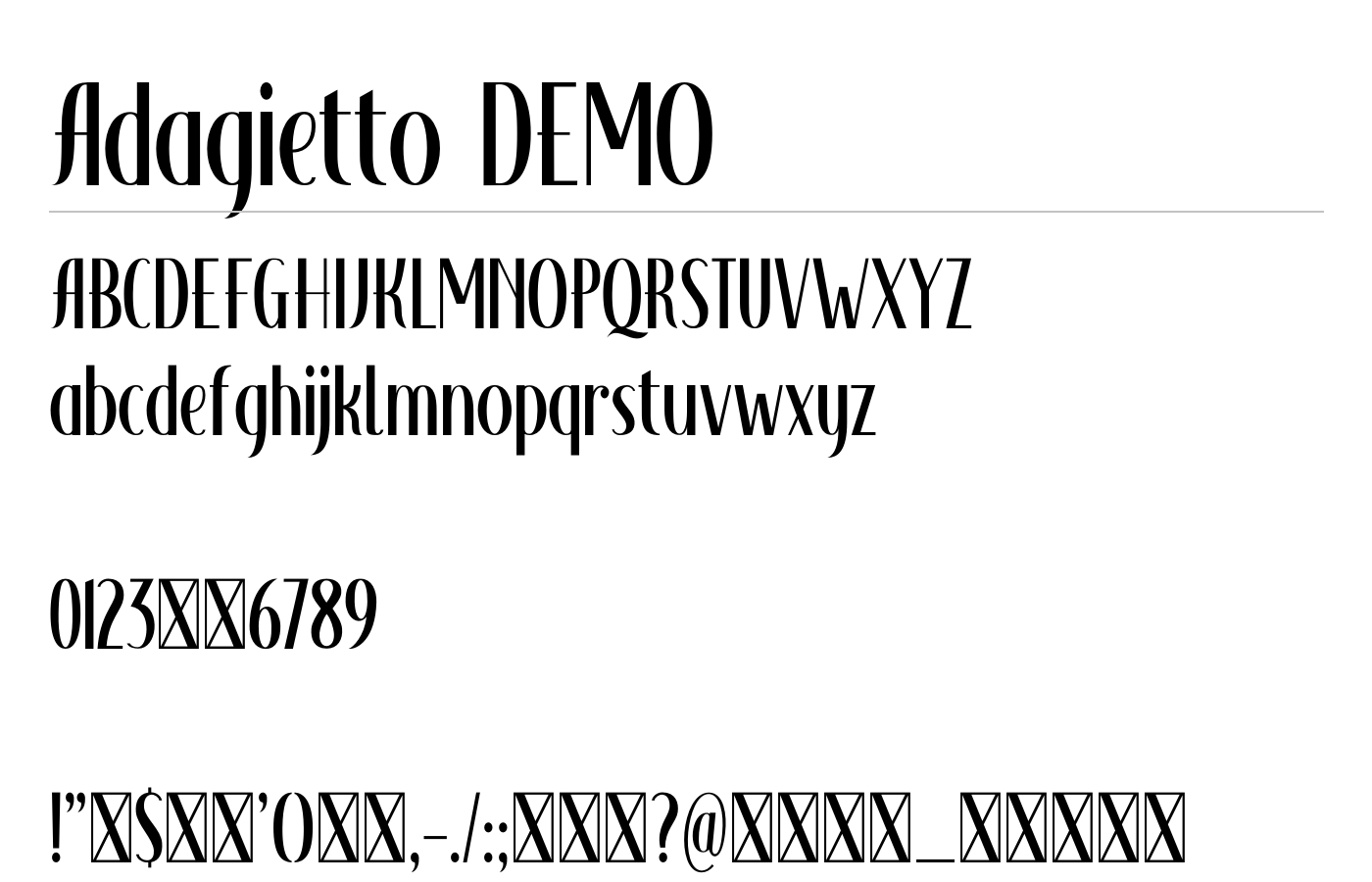
Adagietto DEMO is a sleek, modern serif font with a tall, condensed structure and high contrast between thick and thin strokes. Its elegant, slightly dramatic letterforms and refined details make it perfect for luxury branding, fashion, and stylish editorial headlines. This font brings a sophisticated yet contemporary feel to designs that need a touch of class and distinctiveness.
Adagietto DEMO Font
About Adagietto DEMO Font